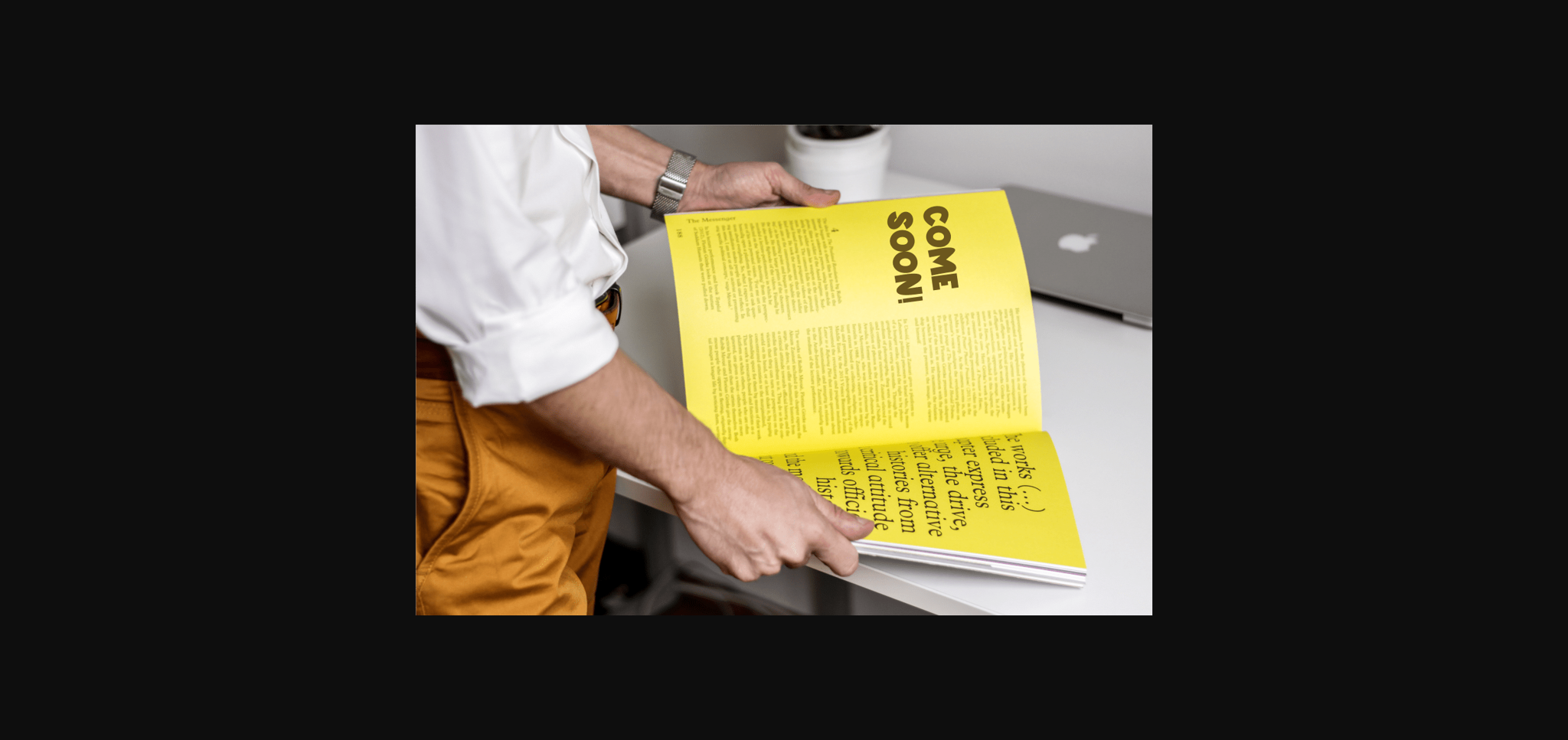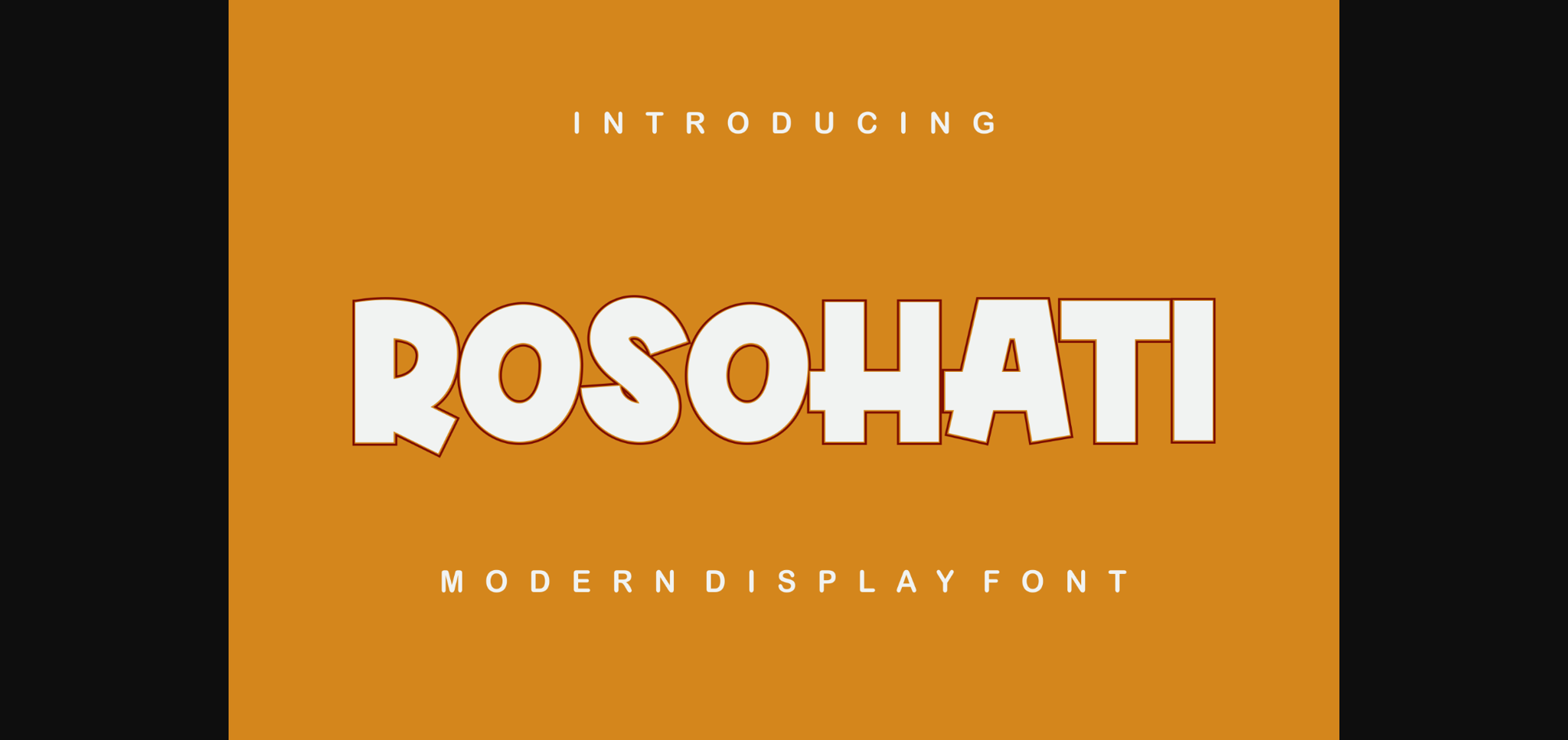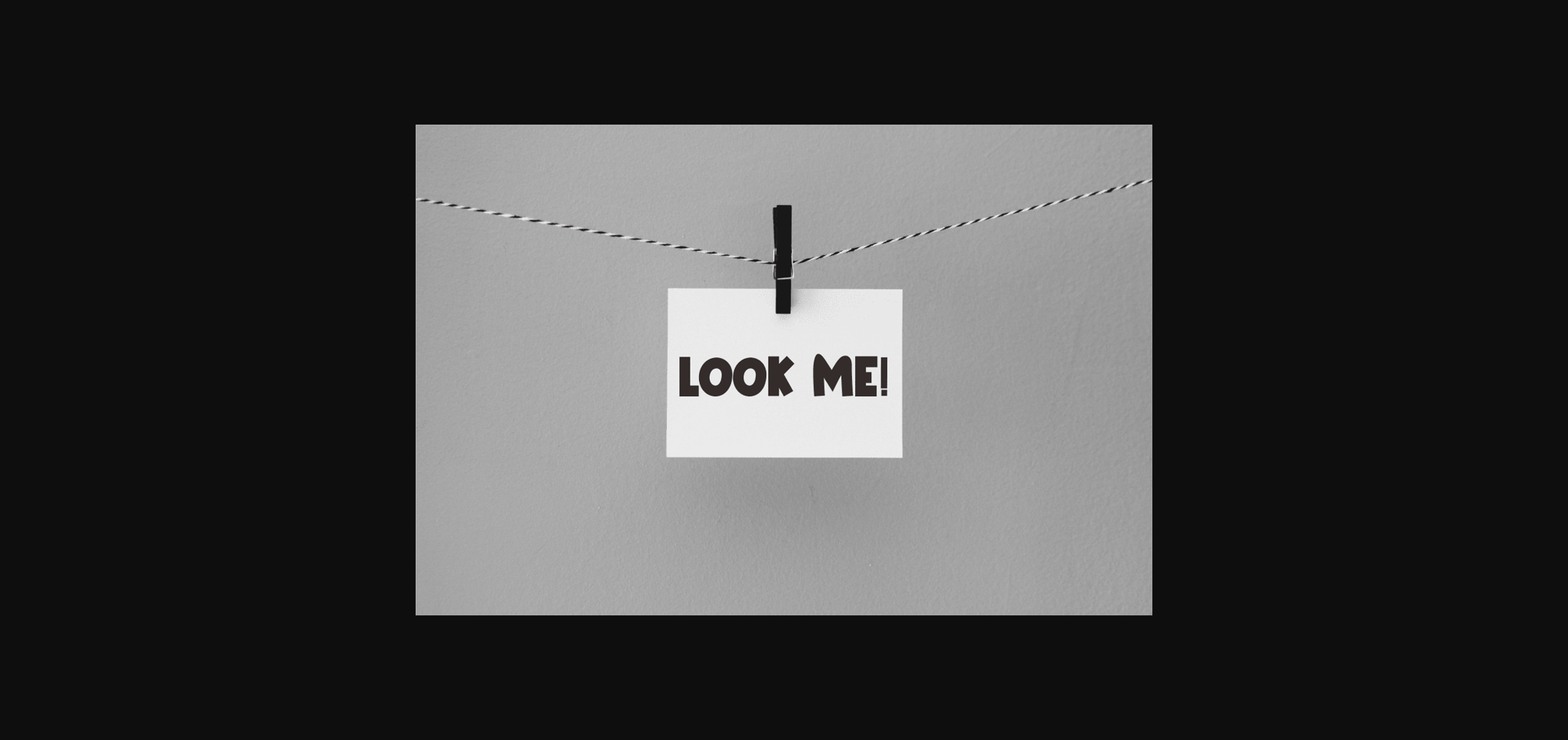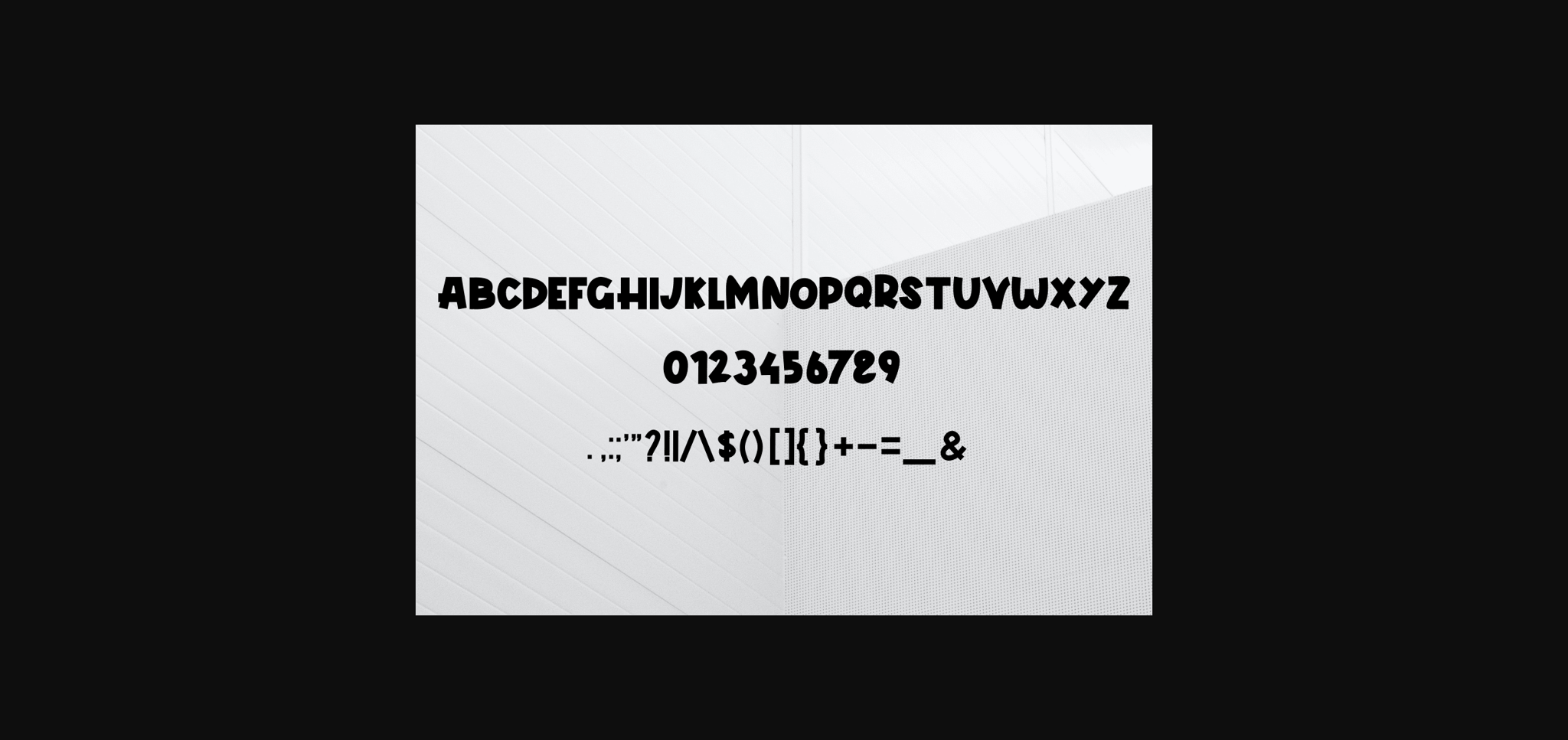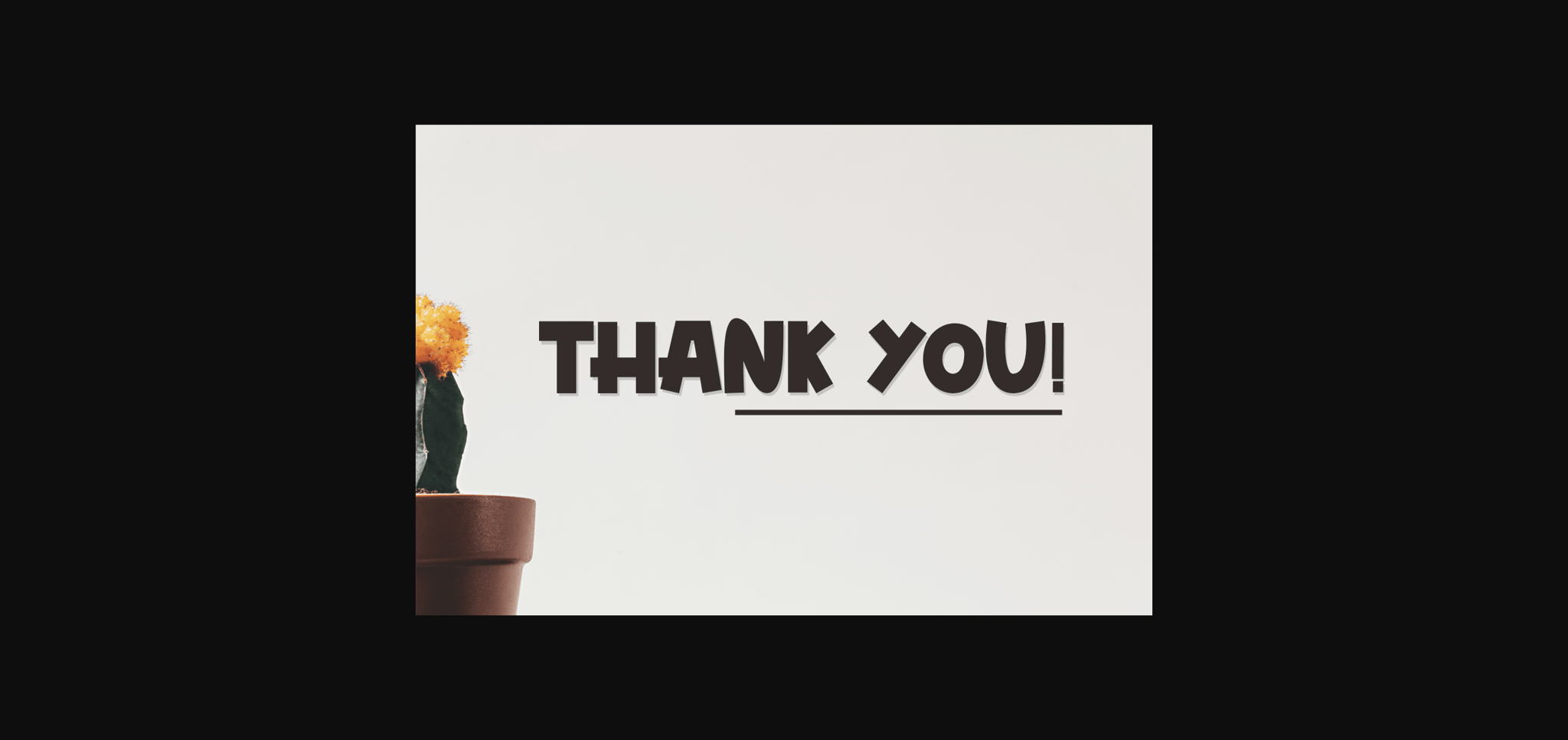
Rosohati Font
About Rosohati Font
Rosohati is a bold and authentic sans serif font suitable for any branding project like logo, t-shirt printing, e-sport, and many more. It will look outstanding in a wide range of contexts.